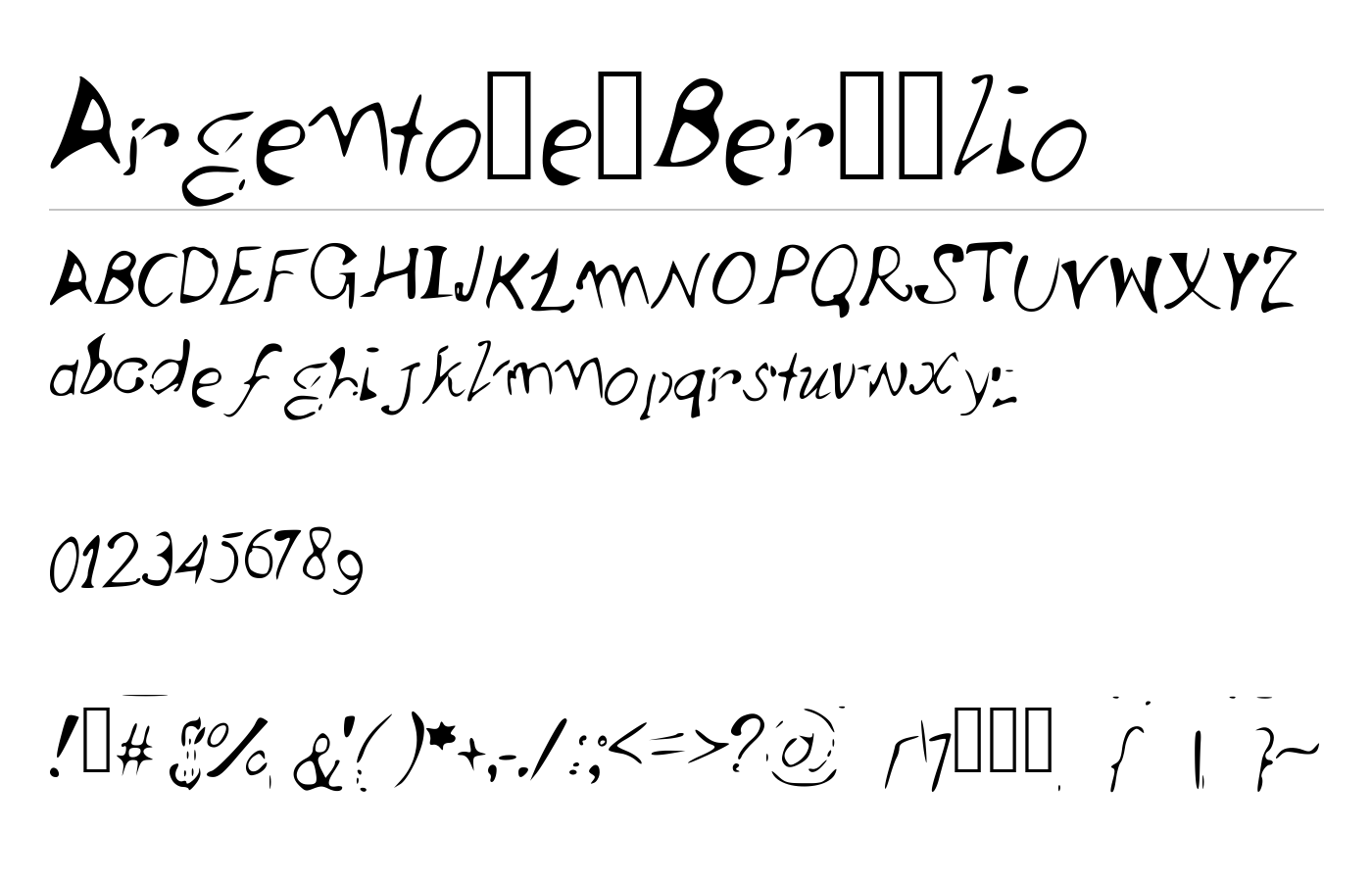
Argento e Berlio is a whimsical and artistic serif font featuring irregular, hand-drawn letterforms with high contrast and playful curves that create a lively, eccentric feel. Its unique shapes and varied stroke widths give it a creative and slightly vintage personality, making it ideal for eye-catching headlines, artistic branding, or quirky editorial designs that seek to convey originality and charm. This font works best where expressiveness and individuality are desired over strict readability, adding an inventive flair to creative projects.
Argento_e_Ber__lio Font
About Argento_e_Ber__lio Font
| Font family | Argento_e_Ber__lio Font |